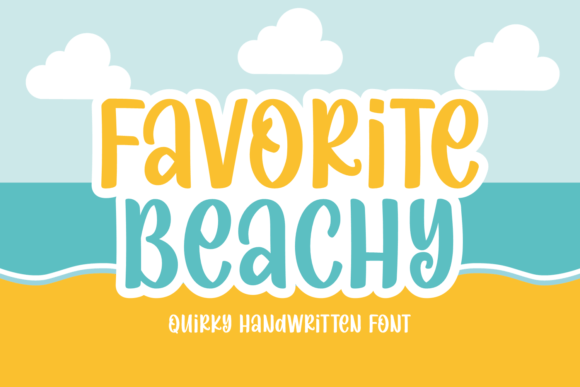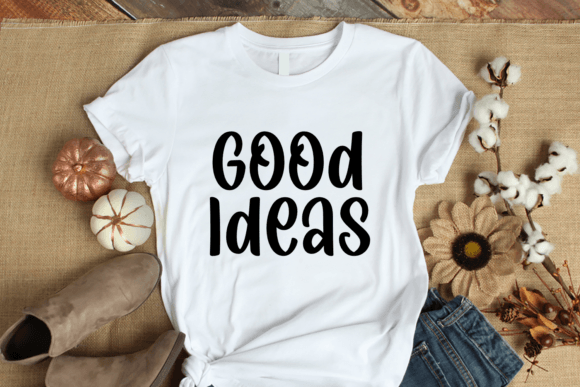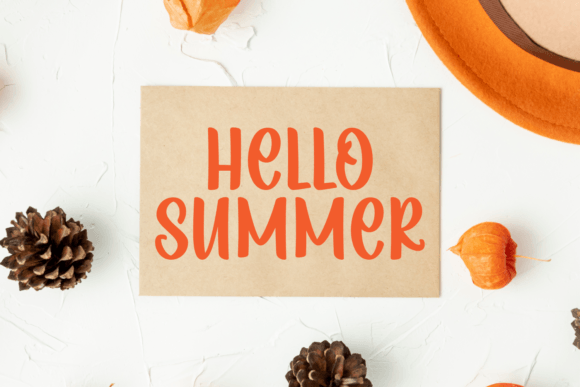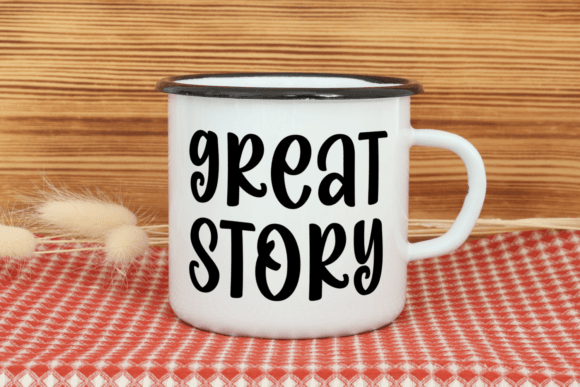
Favorite Beachy Font
About the Favorite Beachy Font
Introducing the Favorite Beachy Font, a beautifully crafted typeface designed to elevate your creative projects. Favorite Beachy is a quirky handwritten typeface. Favorite Beachy works well in a variety of settings, such as logos, product packaging, greeting cards, posters, and invitations. It’s especially suited for DIY projects, branding for artisanal products, or anything needing a personal, organic touch.
Its playful, slightly imperfect forms make it ideal for projects requiring a friendly, approachable aesthetic. Think beach-themed businesses, artisanal food brands, or children’s products. However, its handwritten nature makes it less suitable for large blocks of text or UI elements where legibility is paramount.
Pair it with a clean sans-serif like Open Sans for body copy or a more geometric sans-serif like Futura for a modern contrast. A delicate serif like Garamond could also work well, offering a touch of classic elegance to balance Favorite Beachy’s informality. Avoid pairing it with other highly stylized or overly decorative fonts.
Favorite Beachy’s core personality is undeniably cheerful and casual. It’s best used sparingly as an accent, allowing its quirky charm to shine without overwhelming the design.